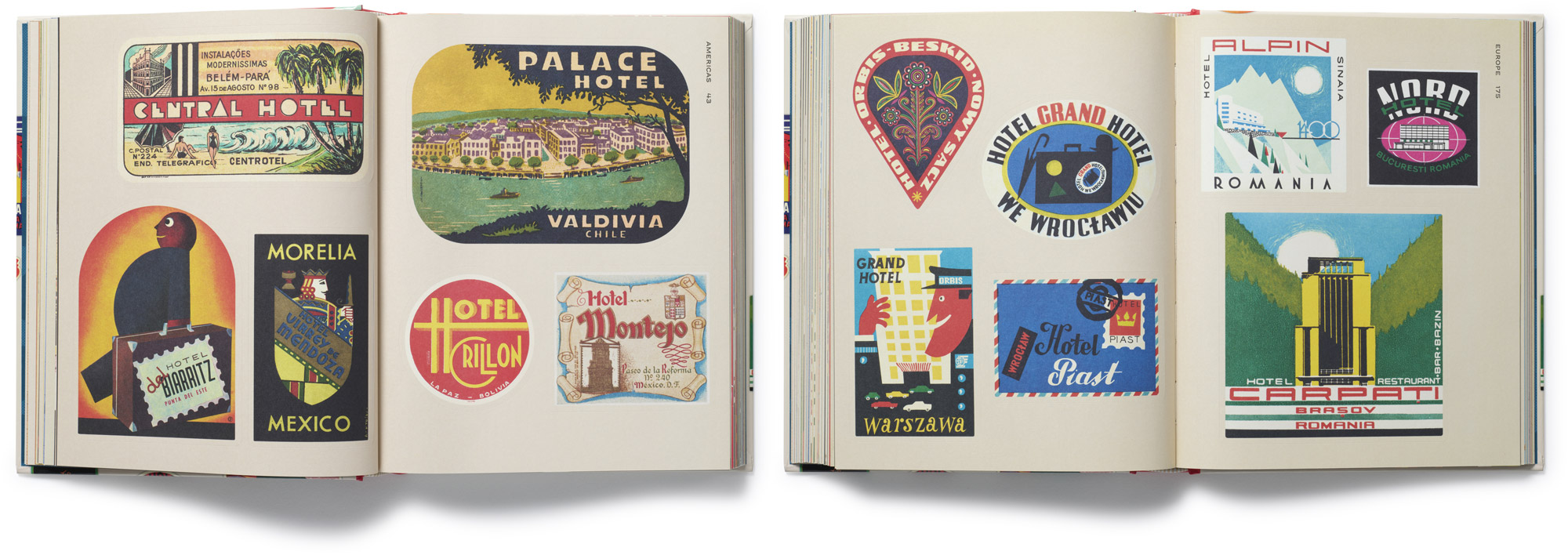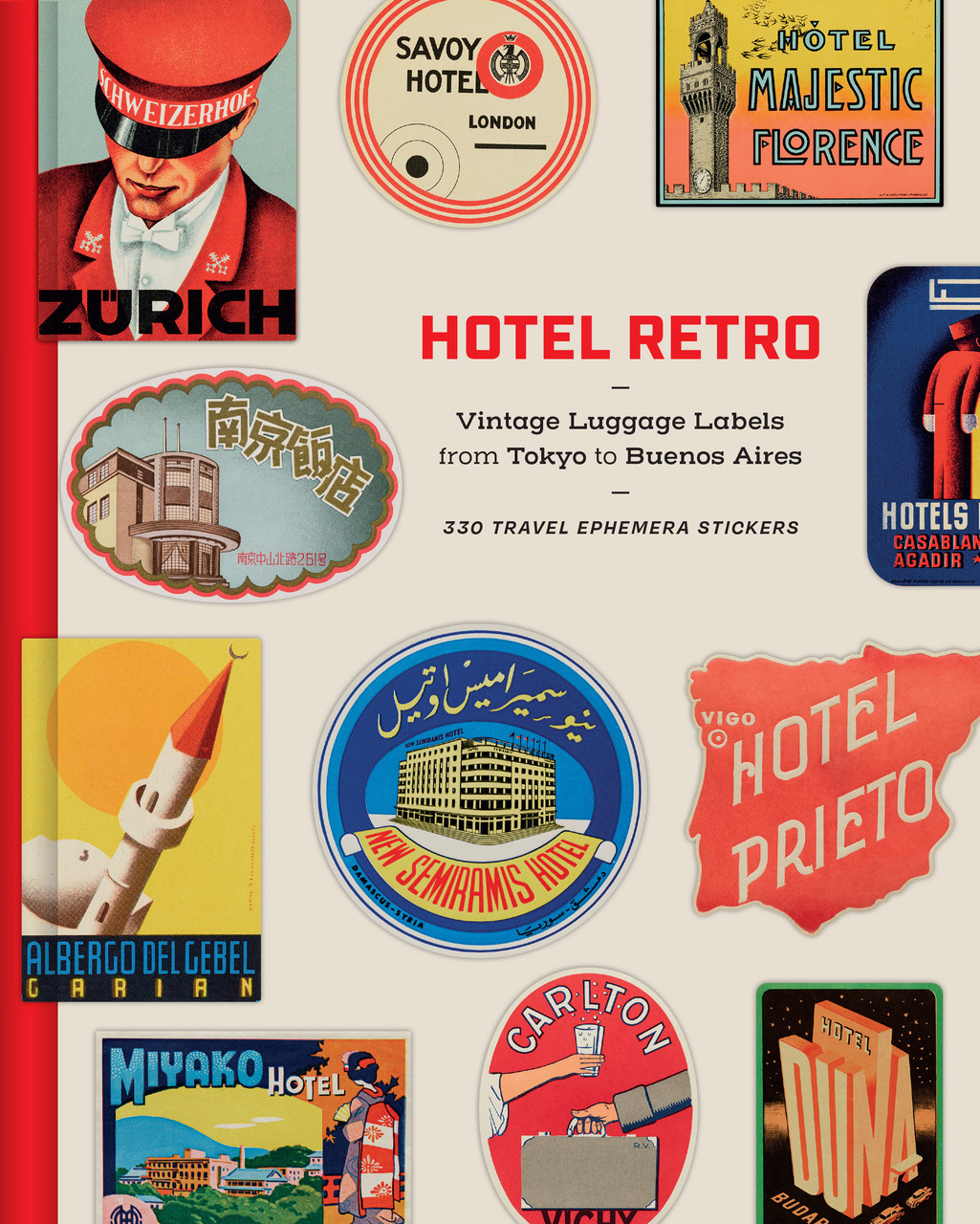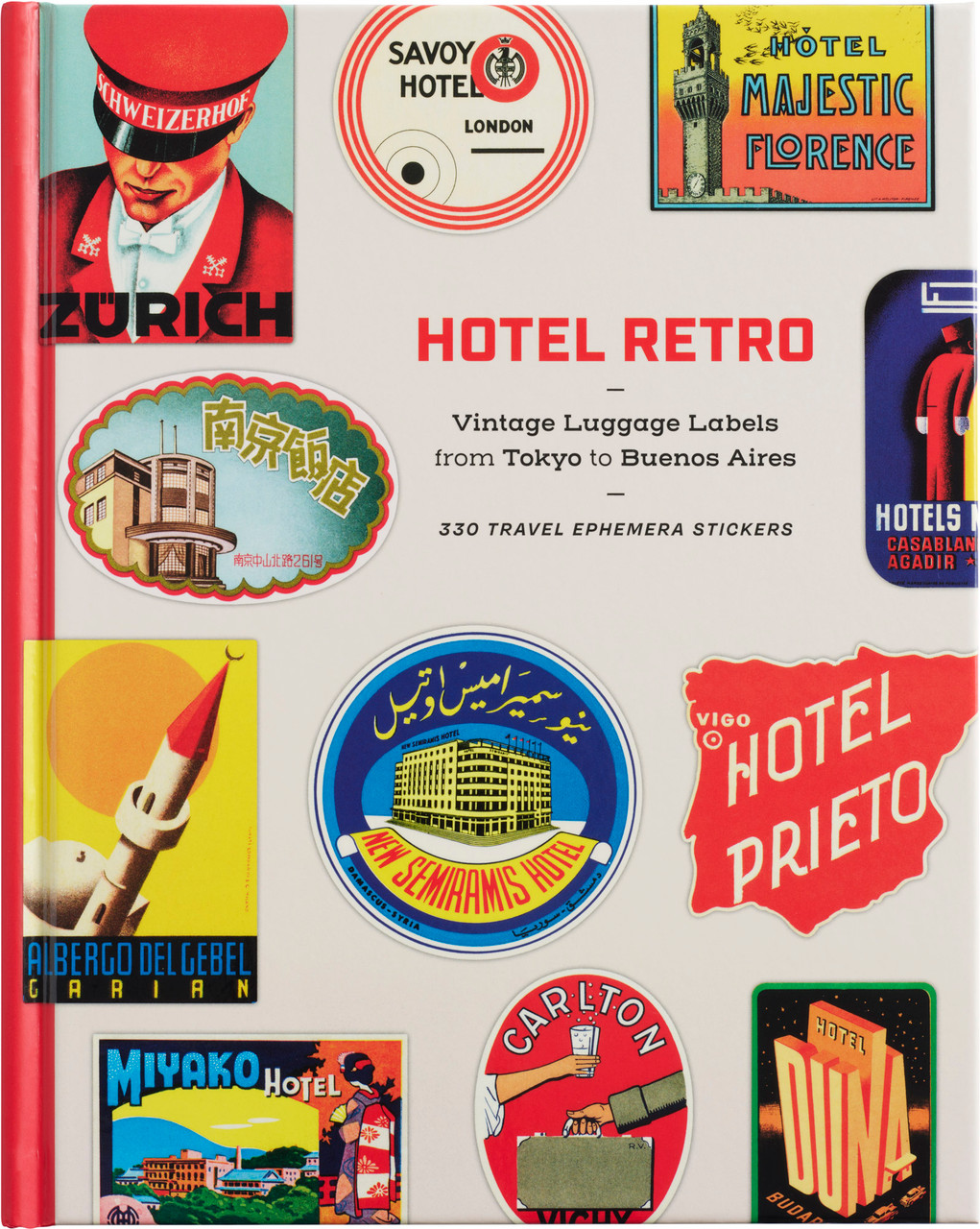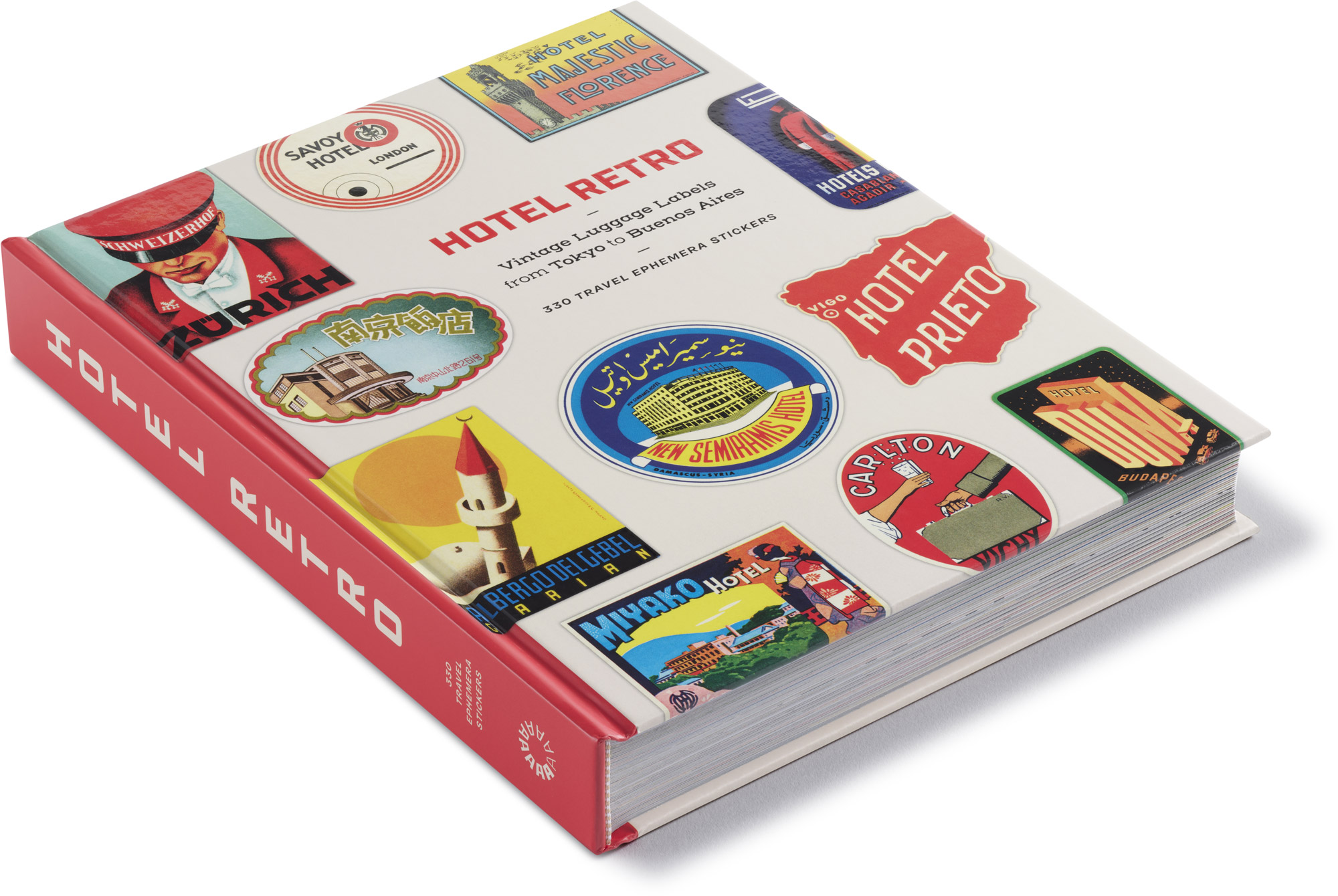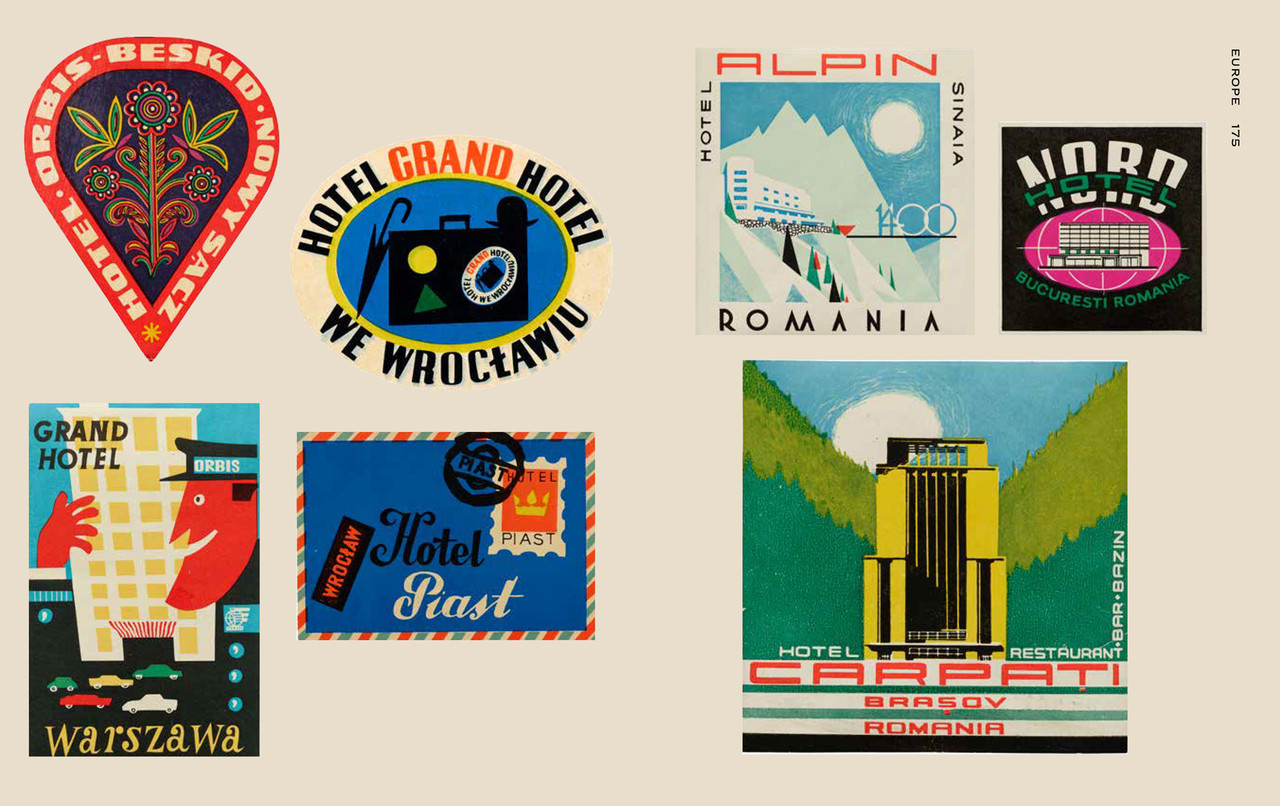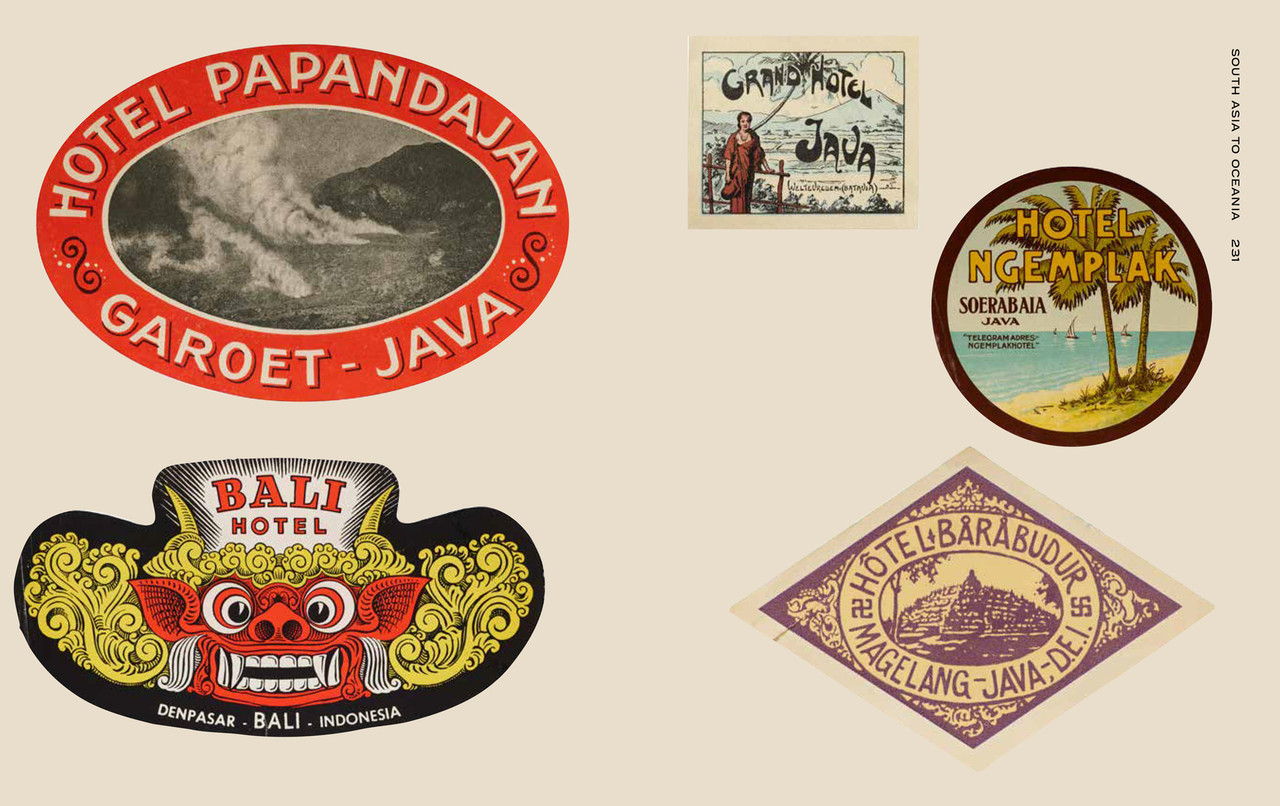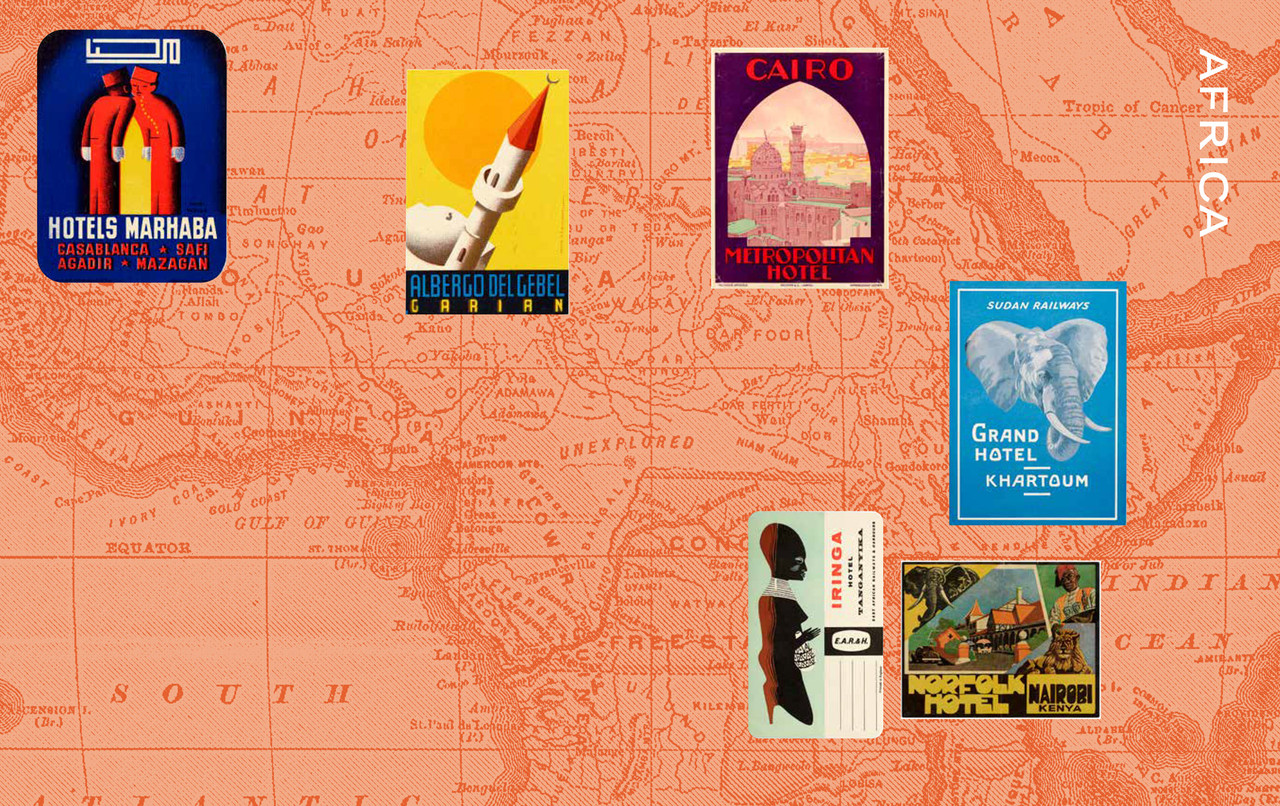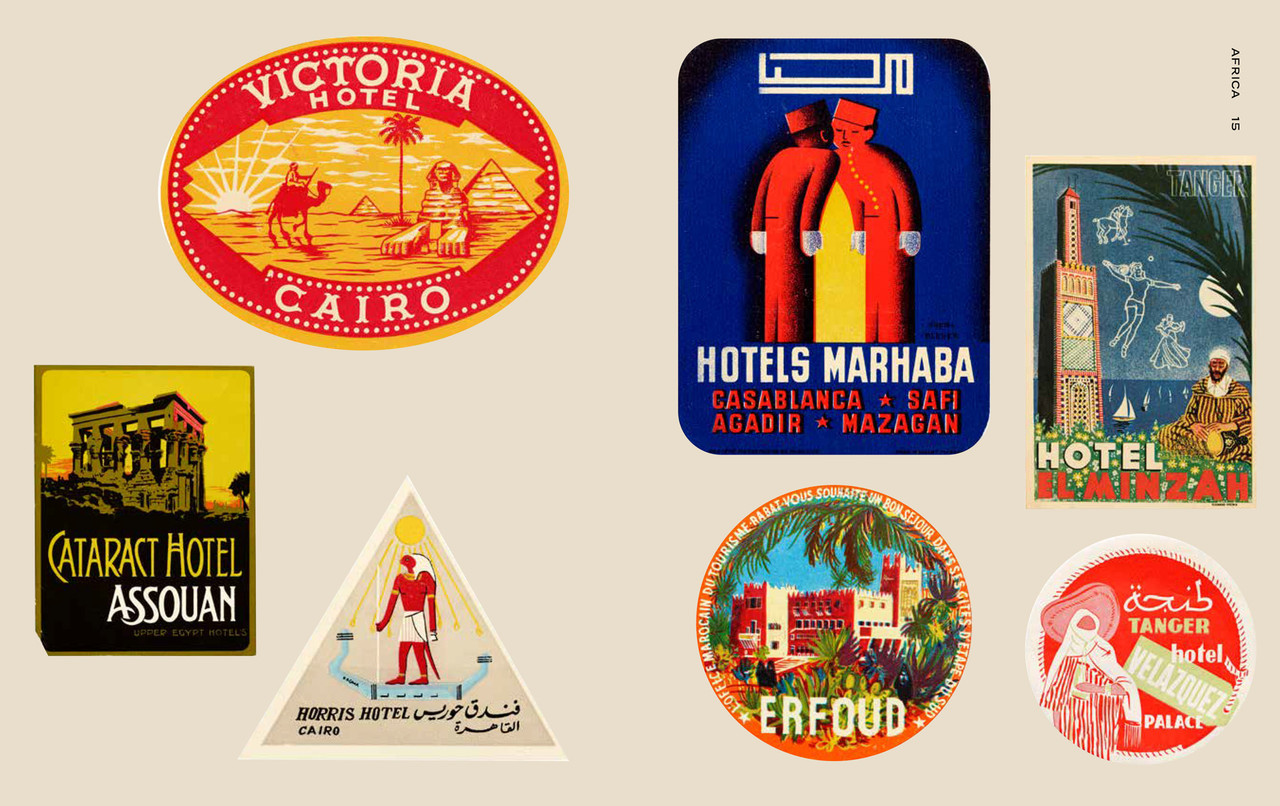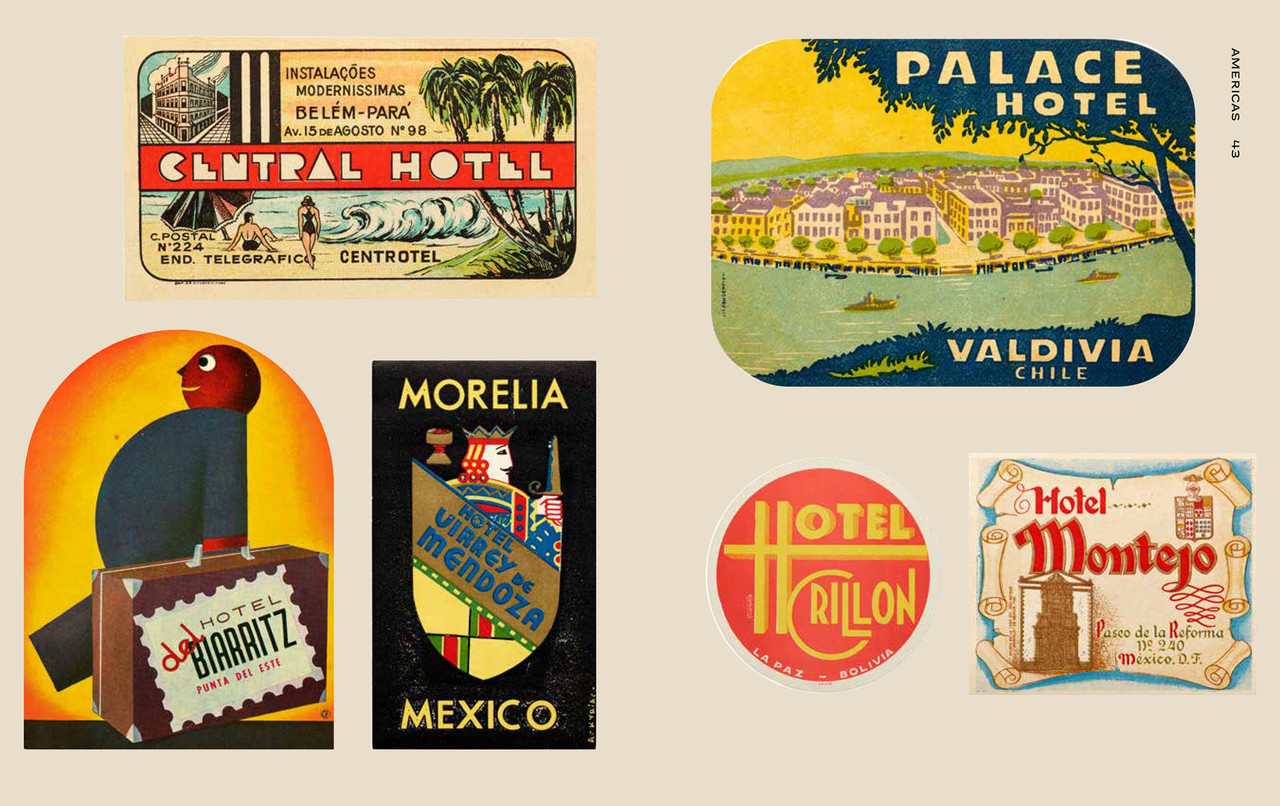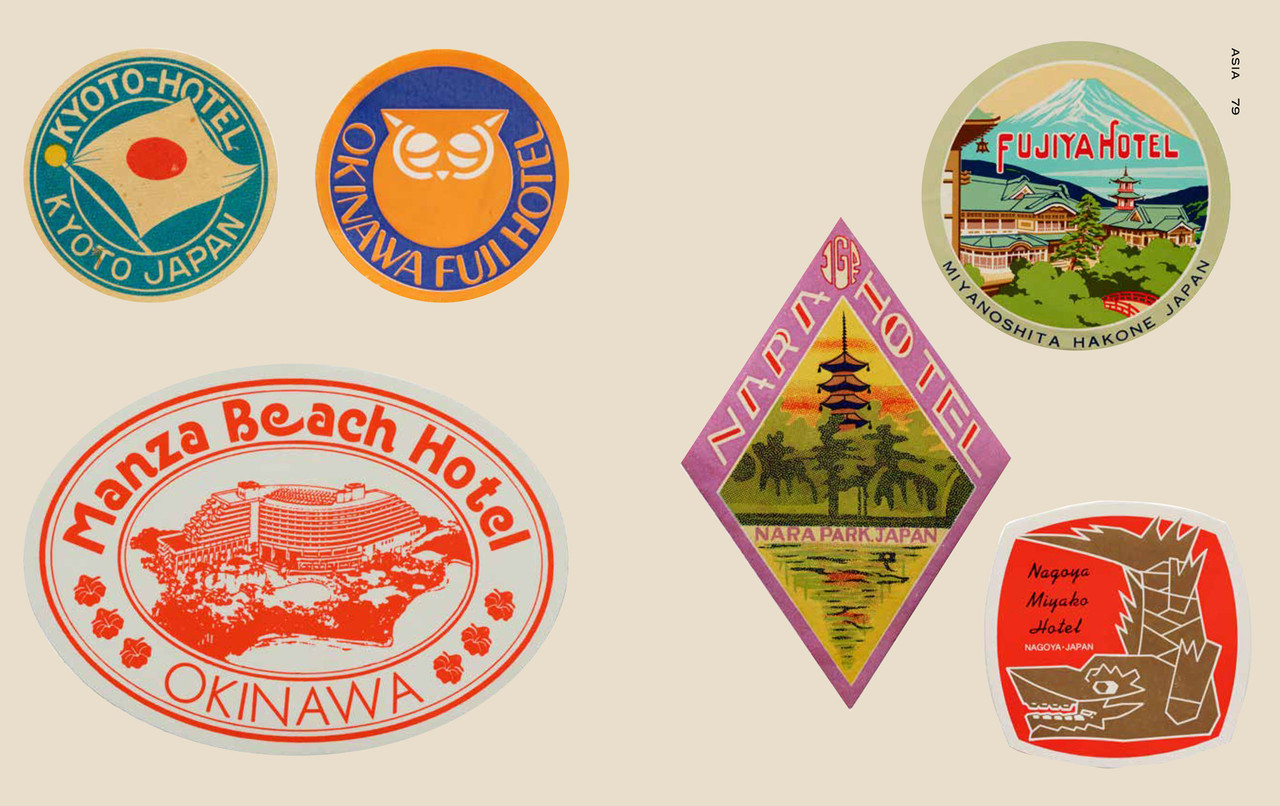
Journey across time and place with hundreds of vibrant steamer trunk labels from the Golden Age of Travel, faithfully reproduced as 330 charming full-color stickers
In the late nineteenth century, as industrialization allowed for the emergence of the leisure class, an unprecedented number of world travelers began touring the globe via train and sea. From far-off destinations they brought home a curious collection: eye-catching labels bearing the insignia of grand hotels, pasted to their steamer trunks as souvenirs. Today, these labels are also souvenirs of graphic design—from the opulence of art deco to the minimalism of Swiss Style. Featuring hundreds of delightful examples from the collection of Letterform Archive, Hotel Retro highlights the labels’ artistry in illustration, lettering, and typography, and restores them to their original adhesive use for the pleasure of a new generation.